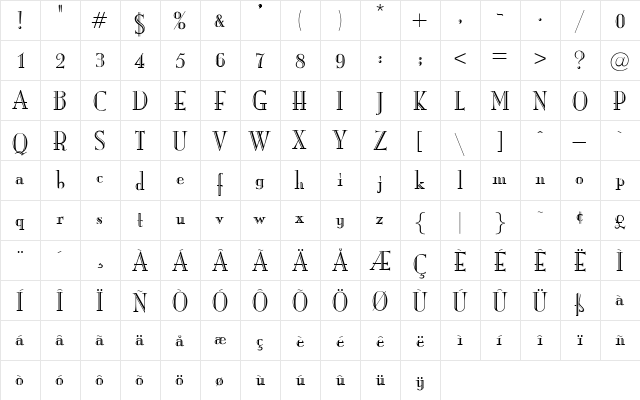
OPTIMargueritte Medium
Design Context for OPTIMargueritte Typeface
OPTIMargueritte is a composed and adaptable typeface that performs quietly and consistently across a wide range of design contexts.
Pro Tip: Use OPTIMargueritte in both headline and body roles to test its range before committing to a single application.